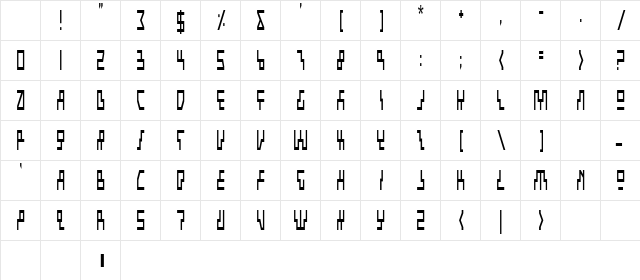
Complete Beam Rider Condensed glyph index. Displaying only characters natively supported by Beam Rider Condensed font.
Beam Rider is a composed and adaptable typeface that performs quietly and consistently across a wide range of design contexts. Its narrow stance lets it pack a punch even in space-constrained designs.